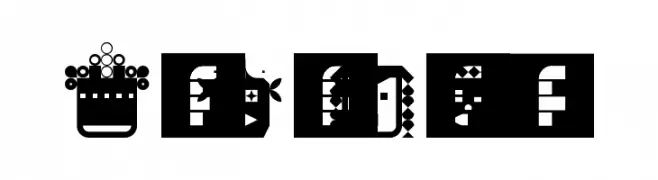
A decorative font with stylized illustrations of Indonesian women in traditional attire.
A decorative font with characters designed as diverse human faces, offering a playful and artistic style.
A modern, artistic font with geometric and organic elements.
A geometric and angular font with a futuristic, decorative style.
A bold, geometric font with a futuristic and industrial style.
A playful, train-themed decorative font with bold, uniform characters.
A decorative, vintage-inspired font with theatrical elements and bold, eye-catching letters.
A modern geometric font with rounded edges and consistent stroke width.
A playful, handwritten font with rounded edges and a casual, friendly style.
A modern serif font with clean lines and balanced proportions.